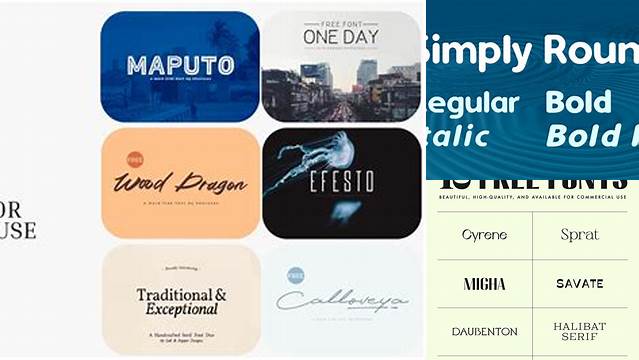
Free Rounded Fonts: Your Guide To Commercial Use
Are you on the hunt for the perfect rounded font to elevate your brand or project? You're in luck, because we're diving deep into the world of rounded fonts that are not only aesthetically pleasing but also free for commercial use. Finding the right font can feel like searching for a needle in a haystack, but with the right knowledge, you can unlock a treasure trove of options that fit your needs. This guide will walk you through everything you need to know, from understanding the basics of font licensing to discovering the best rounded fonts available. So, let's get started, guys! Whether you're a seasoned designer or just starting out, the world of typography can be a fun and rewarding place to explore.
Choosing the right font is more than just picking something that looks good. It's about capturing the essence of your message and connecting with your audience on a deeper level. Rounded fonts, in particular, have a unique charm. They often convey friendliness, approachability, and a sense of playfulness. Think about the brands you love; the chances are good that they use a rounded font in their logo or branding materials. These fonts are incredibly versatile and can be used in a variety of contexts, from websites and apps to print materials and social media graphics. By understanding the nuances of font licensing and knowing where to find the best free options, you can make your design projects stand out without breaking the bank. Plus, there are a plethora of rounded fonts out there, each with its own personality. This means you're sure to find something that resonates with your project.
Top Rounded Fonts Free for Commercial Use
Alright, guys, now for the fun part! Let's dive into some awesome rounded fonts that are free for commercial use. I've selected some of the best options that you can use for various projects.
- Poppins: This is a geometric sans-serif font that's both clean and modern. It has rounded terminals and is perfect for headings and body text. Poppins is a versatile font that works well in many different designs. The great thing about Poppins is that it's super readable at various sizes, which makes it great for pretty much everything. It is one of the most popular fonts and widely used.
- Montserrat: This is another popular sans-serif font inspired by the architecture of the Montserrat neighborhood in Buenos Aires. It has a geometric design with rounded corners and a contemporary feel. It has lots of different weights and styles, so you will be sure to find what you are looking for. Montserrat is often used in a lot of applications such as branding.
- Lato: Lato is a sans-serif typeface designed by Łukasz Dziedzic. It has a clean, friendly appearance with rounded shapes and is suitable for a variety of applications. Lato is another classic! It is easy to read, and you can use it for many different things.
- Open Sans: A humanist sans-serif font designed for readability, making it ideal for both print and digital applications. Open Sans is used in a lot of different projects and websites, and it is a very popular option. It's clean, legible, and it's super readable. This is one of the best options available.
- Roboto: Developed by Google, Roboto combines geometric shapes with friendly curves. It's widely used for its clarity and legibility. It is optimized for both screen and print. You really can't go wrong with Roboto. It's everywhere for a good reason.
When downloading and installing these fonts, make sure you do so from reputable sources. Google Fonts is an excellent resource. As a rule of thumb, never download fonts from sketchy websites. You don't want any viruses or malware. After installing a font, you can use it in most design software. Remember to check the font's license to make sure you are complying with any requirements, such as attribution. These fonts are excellent choices and are free for commercial use. By using these, your projects are sure to be a hit.
Where to Find Free Rounded Fonts
Now that you're excited about these great options, where do you actually find them? Don't worry, it's not as difficult as you might think! There are several great resources where you can download free, high-quality fonts. Here are some of the best:
- Google Fonts: This is arguably the best place to start. Google Fonts offers a vast library of free, open-source fonts. You can easily browse the library, preview fonts, and download them. The best thing about Google Fonts is that all fonts are available for commercial use. No surprise, it is the most popular option.
- DaFont: DaFont is a popular website where you can find a wide range of fonts, including many rounded ones. It's essential to carefully check the license of each font, as not all are free for commercial use. Always read the license!
- Font Squirrel: Font Squirrel is another great resource for finding free fonts. They offer a curated selection of high-quality fonts, and most are available for commercial use. They have a great selection and are easy to find what you're looking for.